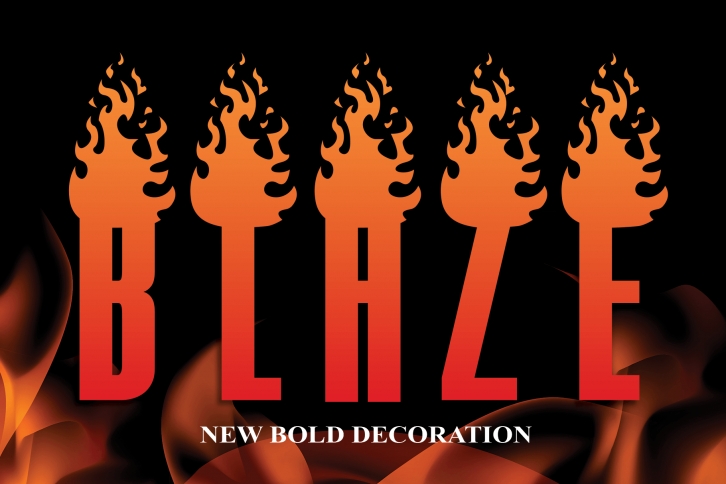
This is a beautiful decorative font that you can use for a variety of projects such as wall hangings, wedding invitations, social media post logos, advertisements, product packaging, product designs, labels, photography, watermarks, invitations and stationery.